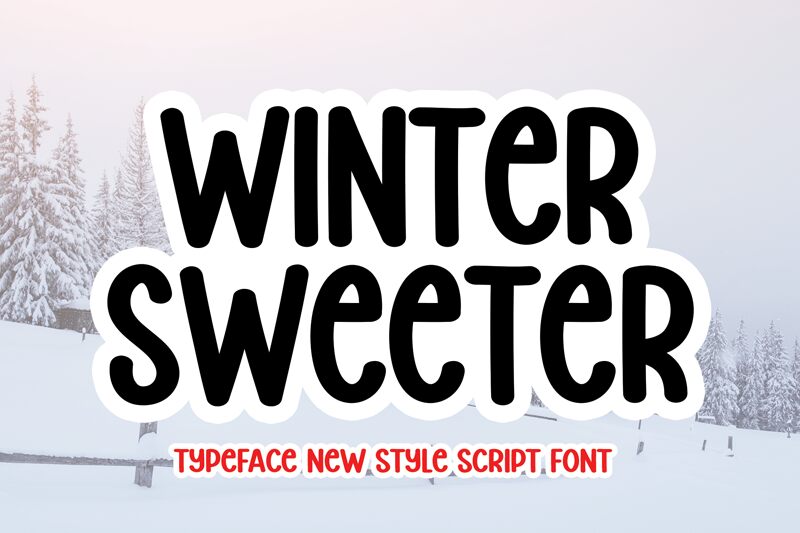
Winter Sweeter
Winter Sweeter, a creation by Scratchones, brings the warmth of handwritten charm to your digital canvas. This semi-condensed font boasts an aesthetic that masterfully blends casual elegance with a touch of whimsy. Each stroke resonates with the personal touch of ink on paper, making it a delightful choice for projects that require an intimate and inviting vibe.
Crafted to stand out, Winter Sweeter's distinctive style lends itself beautifully to personalized stationery, unique branding materials, and captivating social media graphics. Its legibility and artistic flair ensure that it maintains both its visual appeal and functional versatility across various creative undertakings.
Whether you're looking to infuse a sense of coziness into your design or aiming for a stylishly approachable look, Winter Sweeter is poised to elevate your project with its individualistic handwritten style.